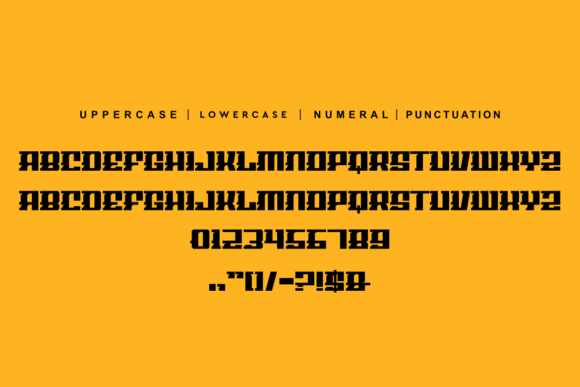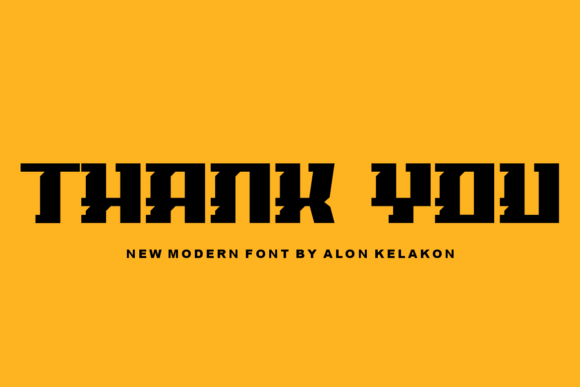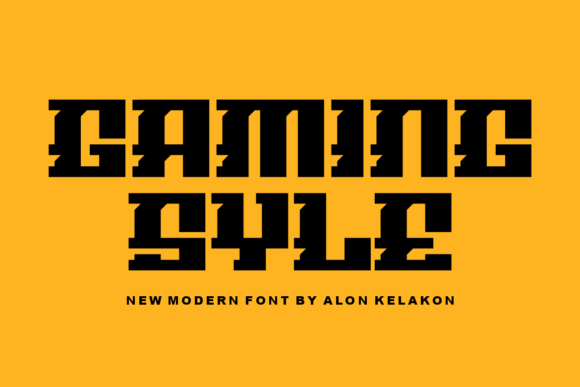
in Serif FontsGokerog FontAbout Gokerog Font 100 Views View Gallery 5 images GOKEROG FONT SPECIMENGokerog is a unique slab serif font ready to use for your design like labeling, clothing, movie scenes, poster, movie title, gigs, album covers, logos, and much more. Gokerog Written by canyonadmin Leave a Reply Cancel replyYour email address will not be published. Required fields are marked *Comment *Name * Email * Website Save my name, email, and website in this browser for the next time I comment.